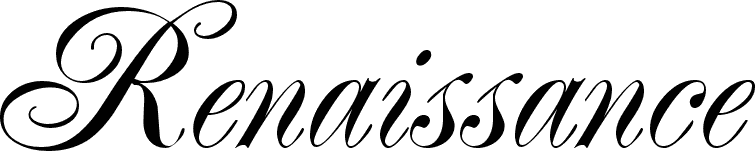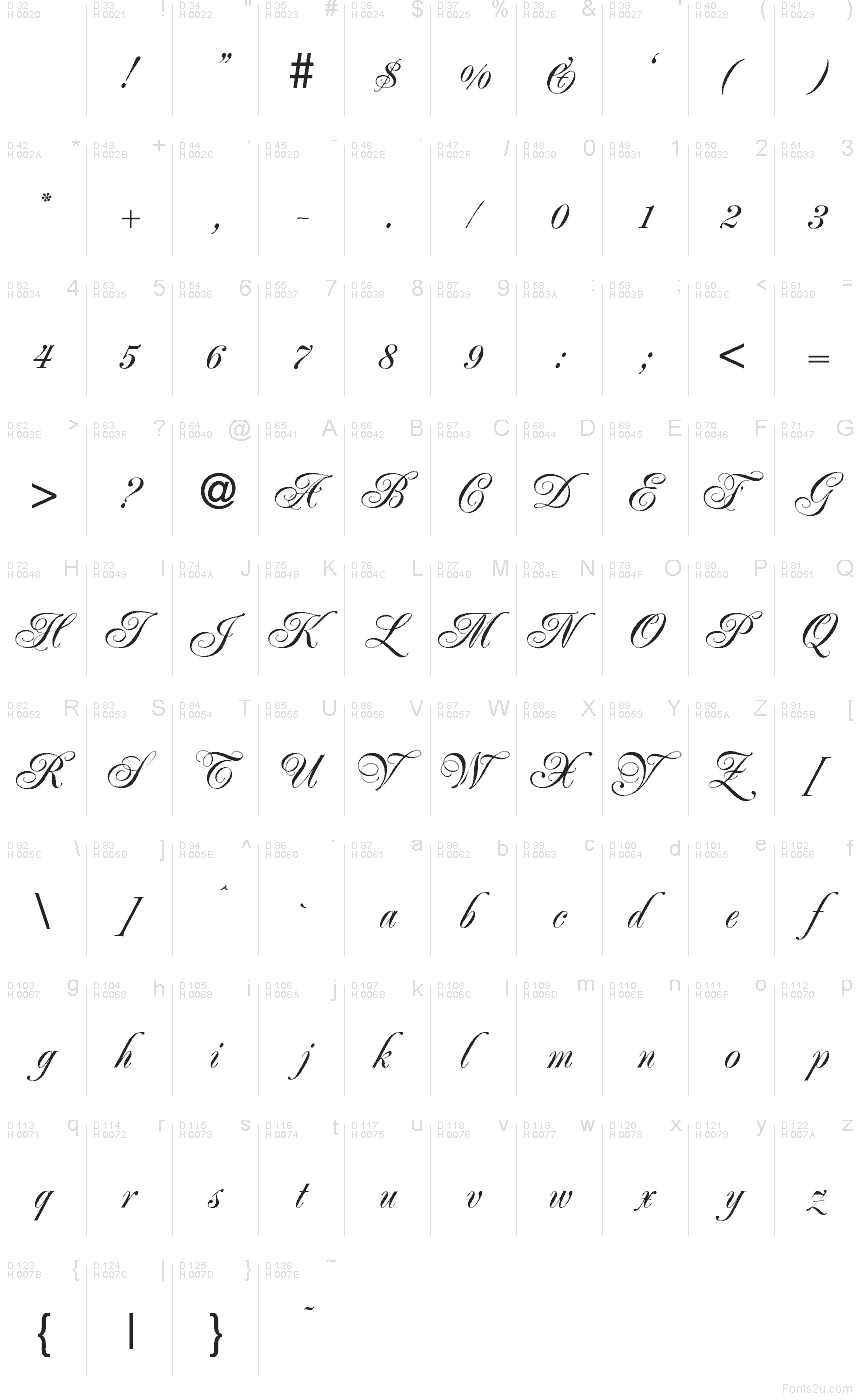
Going more into detail, the renaissance font is marked by refined curves and edges and embodies a subtle contemporary lettering style which counts on more than 350 glyphs with the support of several languages based on the latin alphabet. Designed by alex kaczun in 1997 up to 1 family supports at least 21 languages (std / ot cff) available licenses for all styles: Size renaissance by vladimir nikolic.
Fs Renaissance Is A Display Stencil Typeface By The Monotype Studio.
Inspirational designs, illustrations, and graphic elements from the world’s best designers. A collaboration between lettering artist and designer craig back and creative type director pedro arilla, the single style font explores the intersection between art and design. What you are looking for, is a blackletter or gothic font, such as these:
Fs Renaissance Is A Display Stencil Typeface By The Monotype Studio.
This Kit Is Meant To Be Versatile With An Overall Result Characterized By A Modern Look.
The font contains characters from the following unicode character ranges: With artist and designer working hand in hand, each letter was crafted as a standalone piece of art,. They span from the medieval to the renaissance, but are probably generally seen as being medieval rather than renaissance.